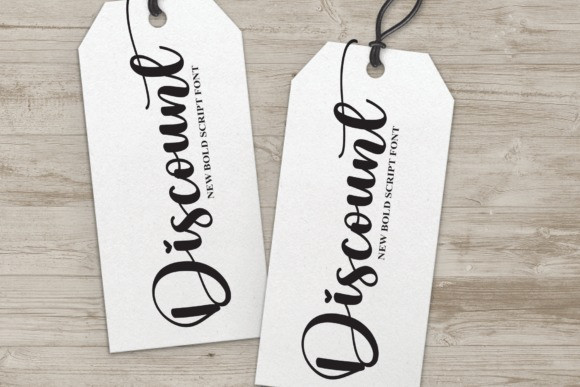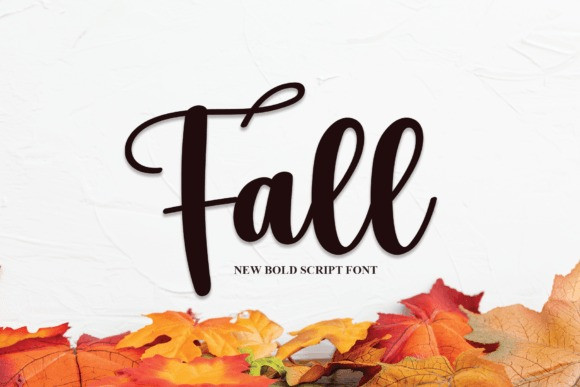
Fall Script Font
Fall Script Font, perfect for wall displays, wedding invitations, social media post logos, advertisements, product packaging, product designs, labels, photography, watermarks, invitations, stationery, and any project that requires a handwritten taste.